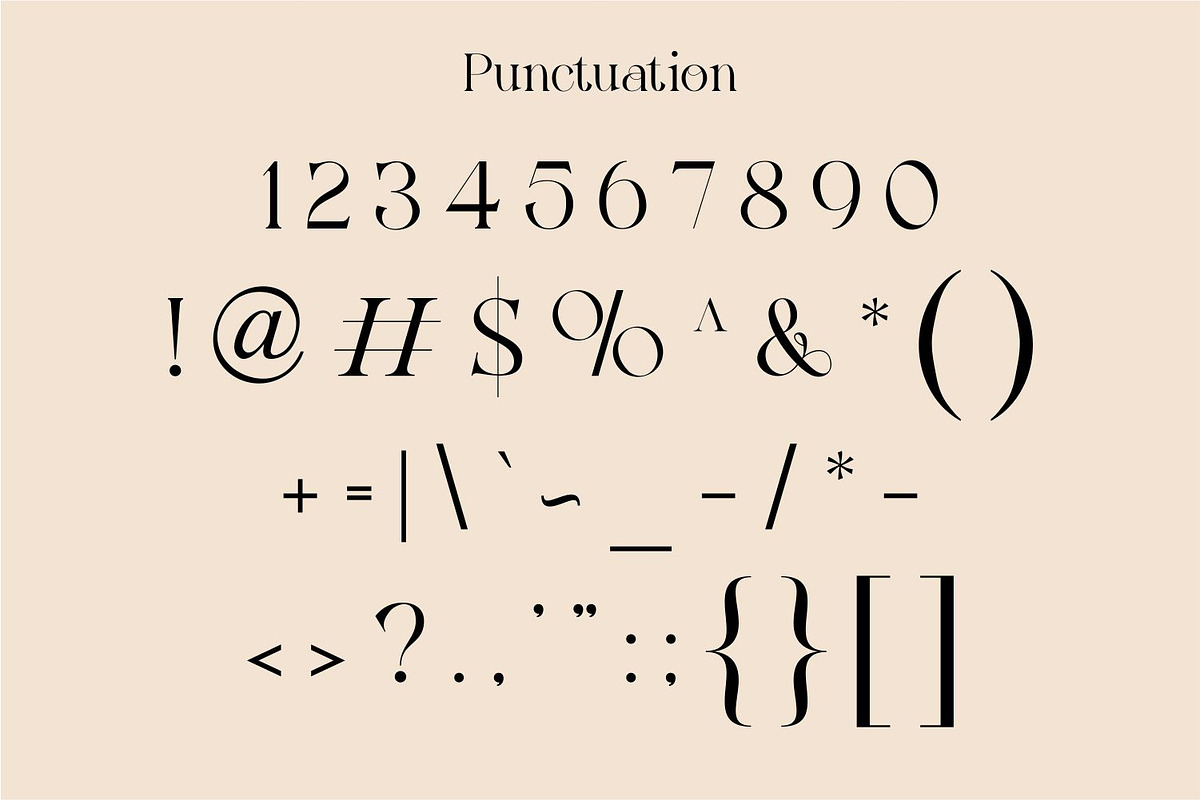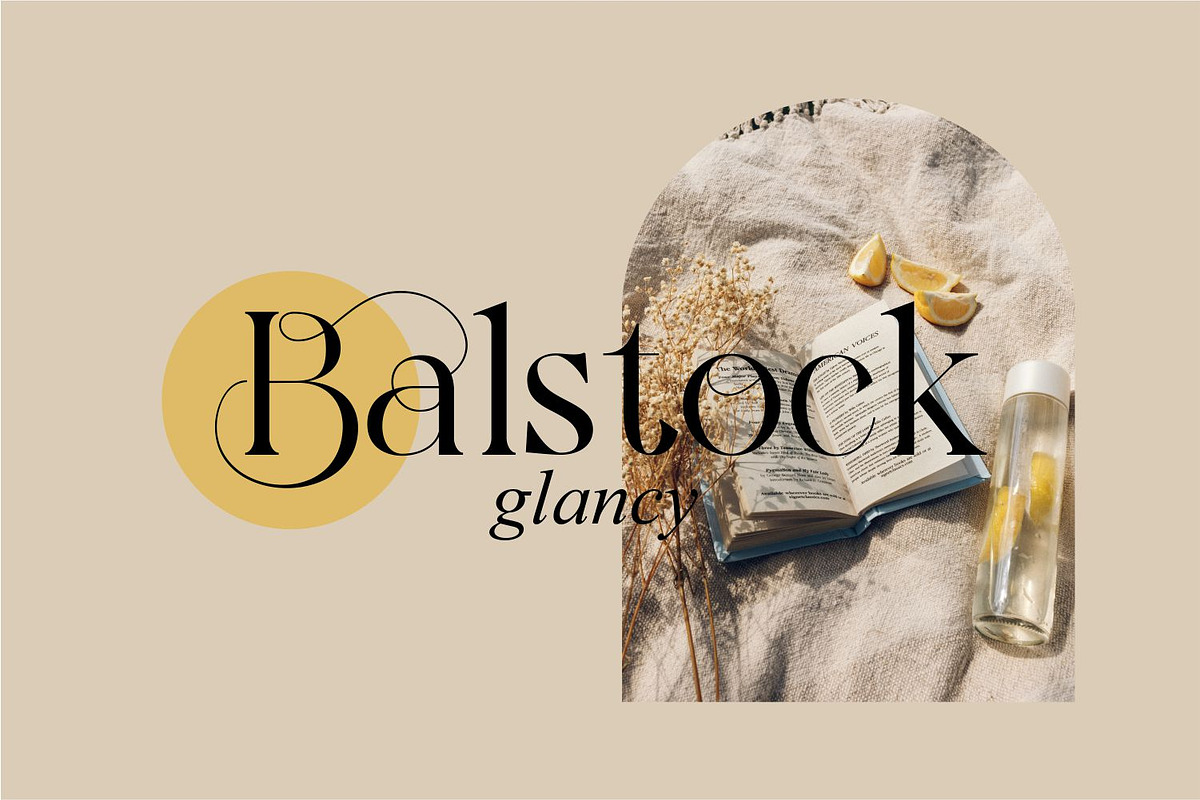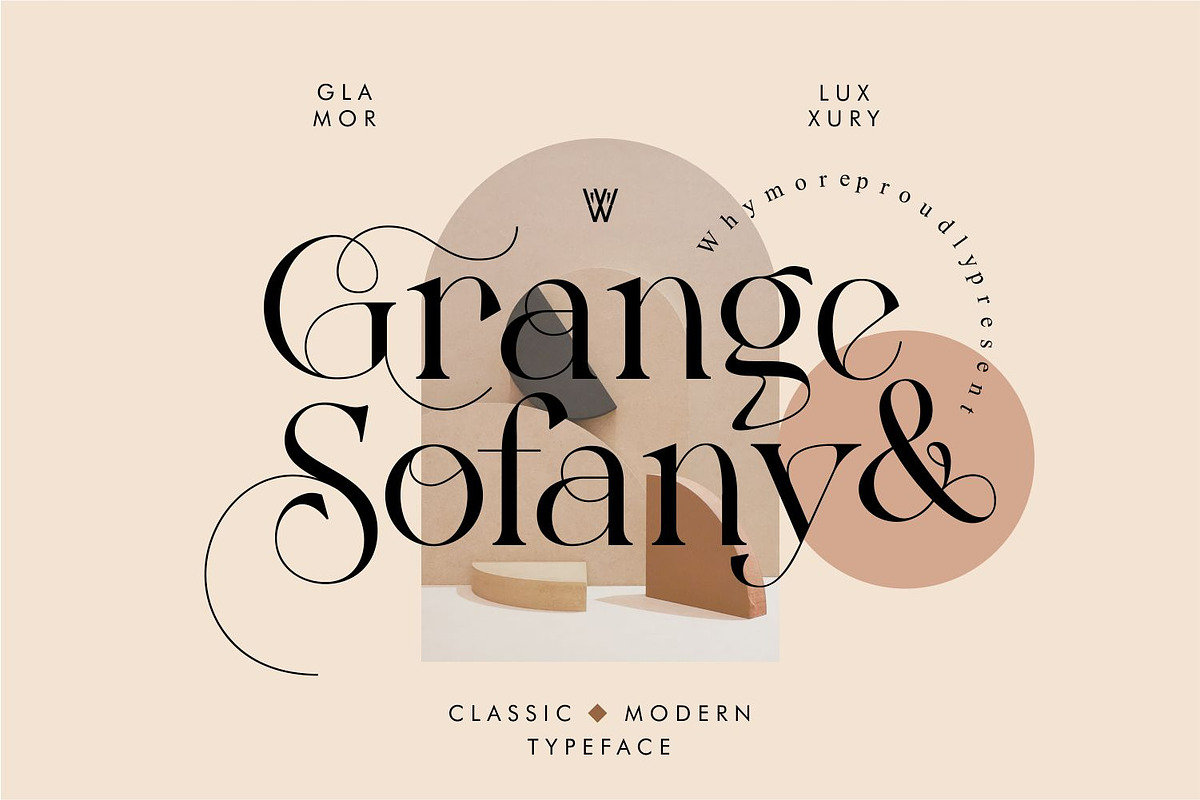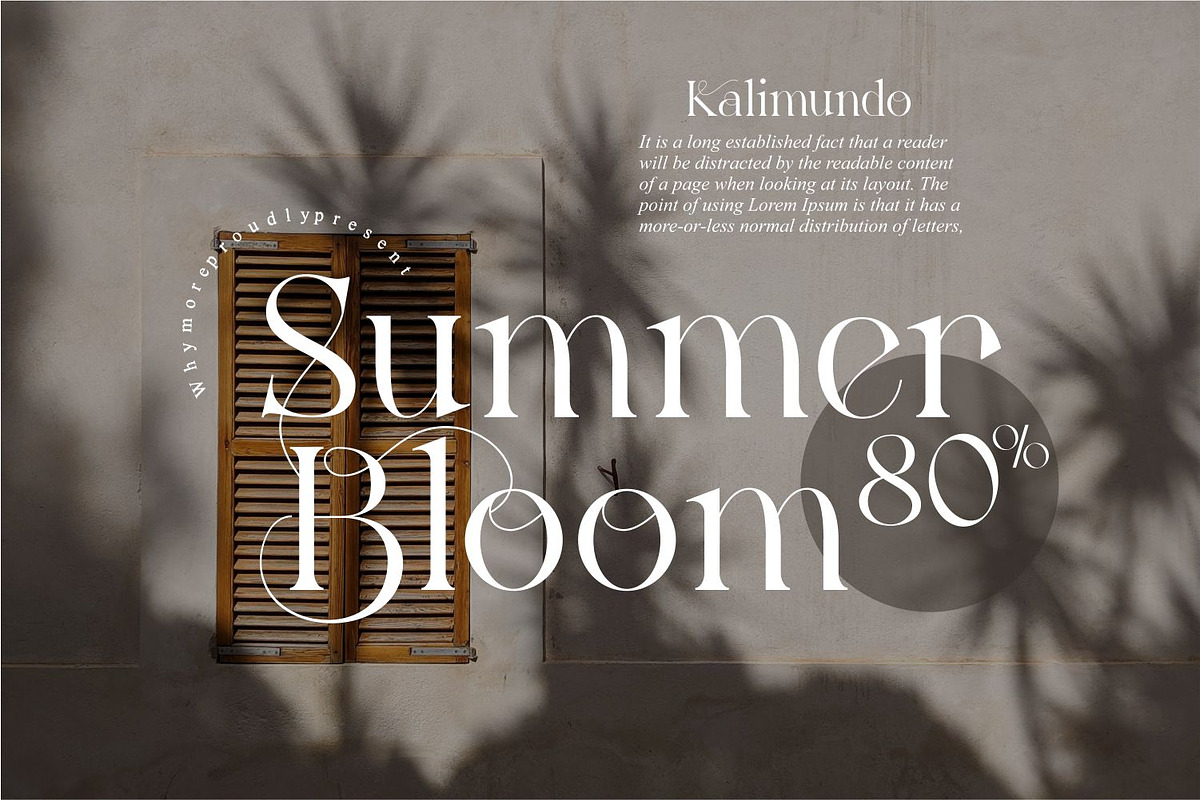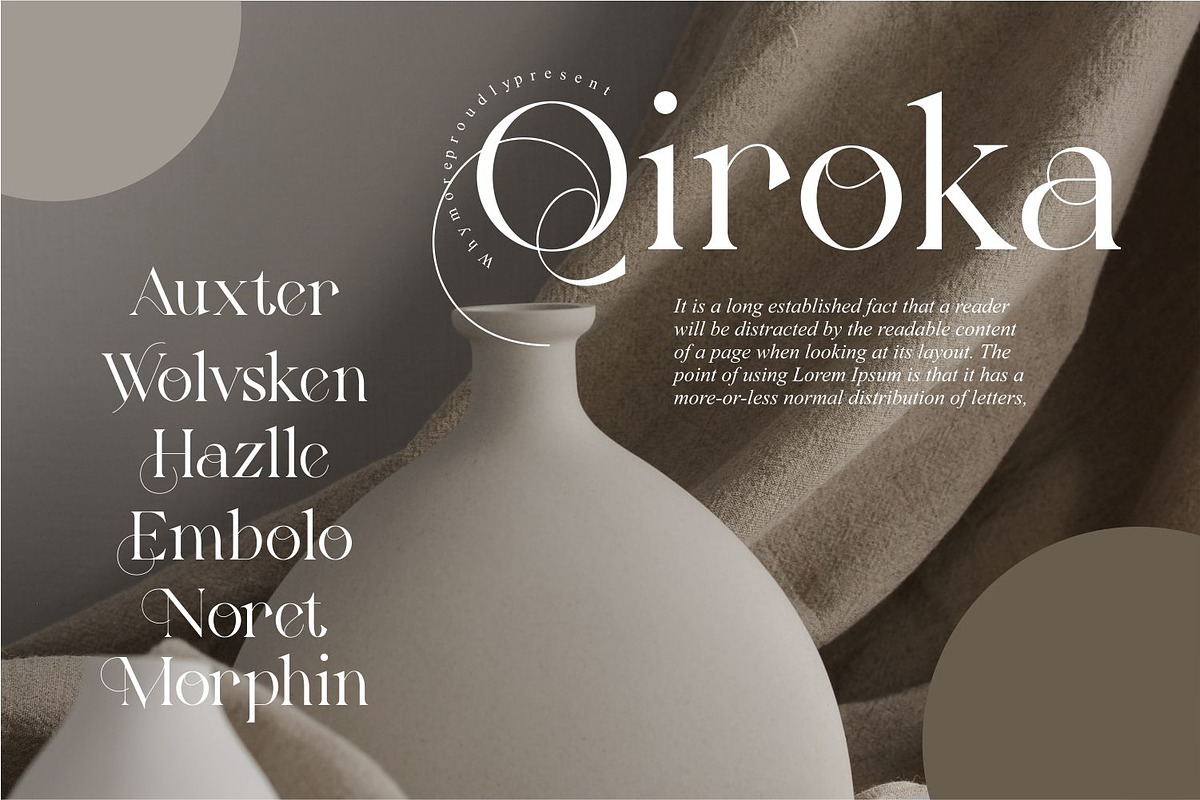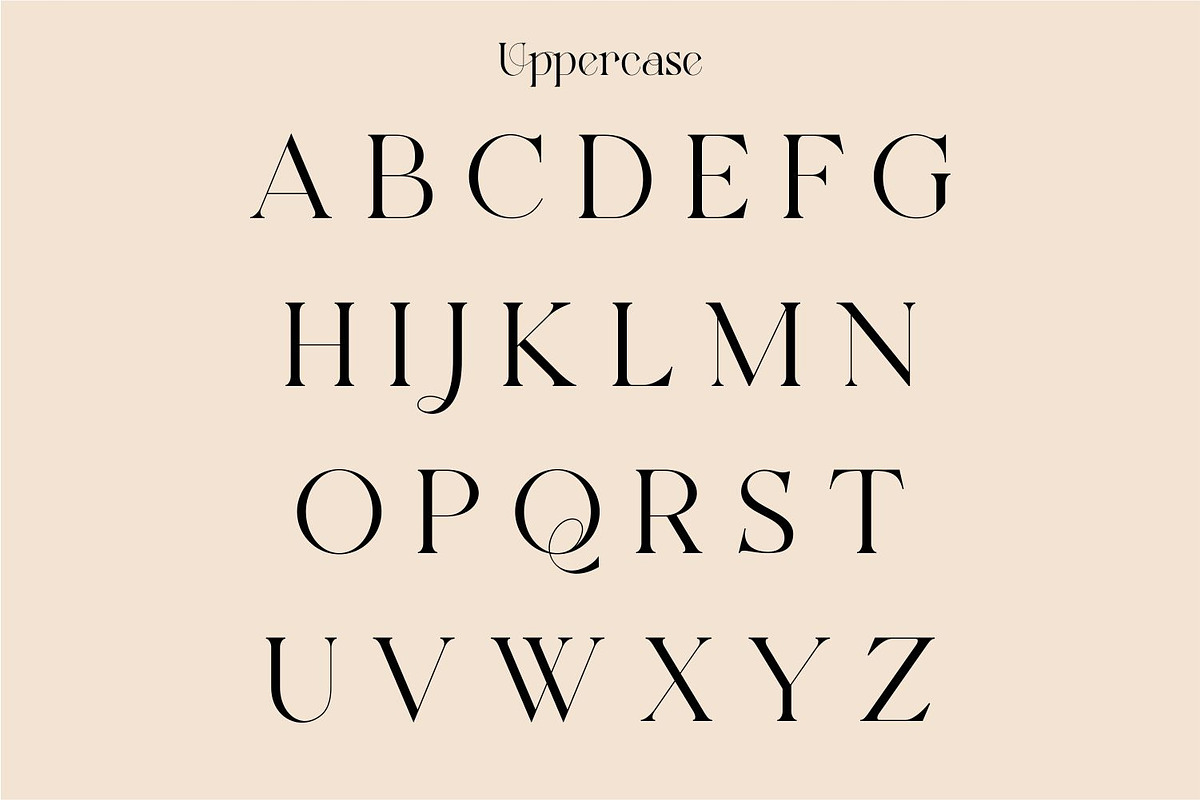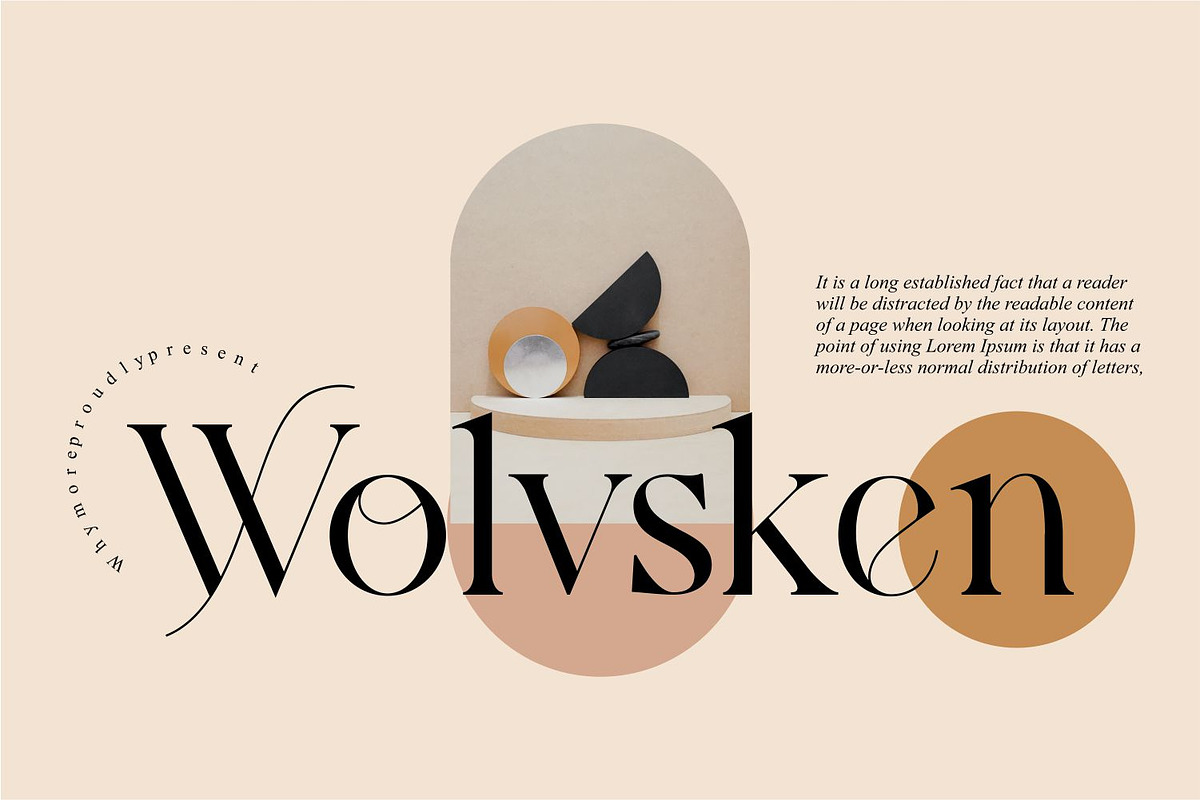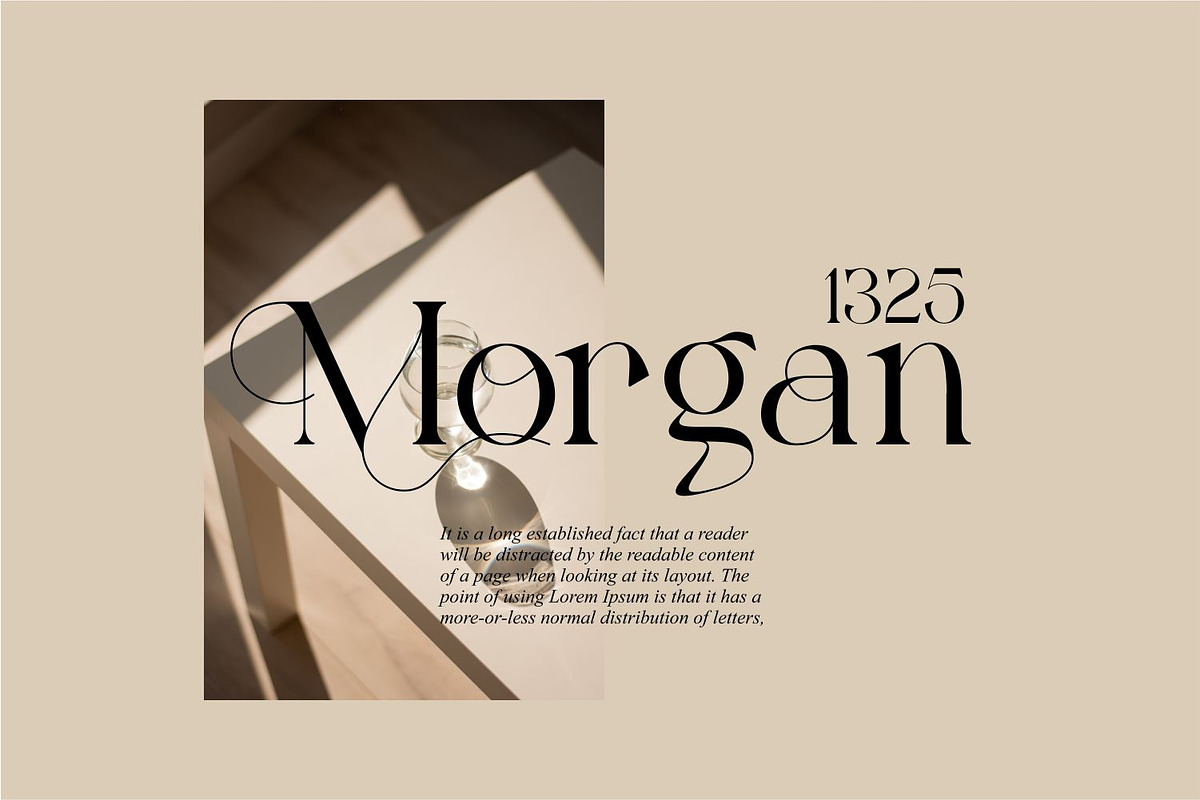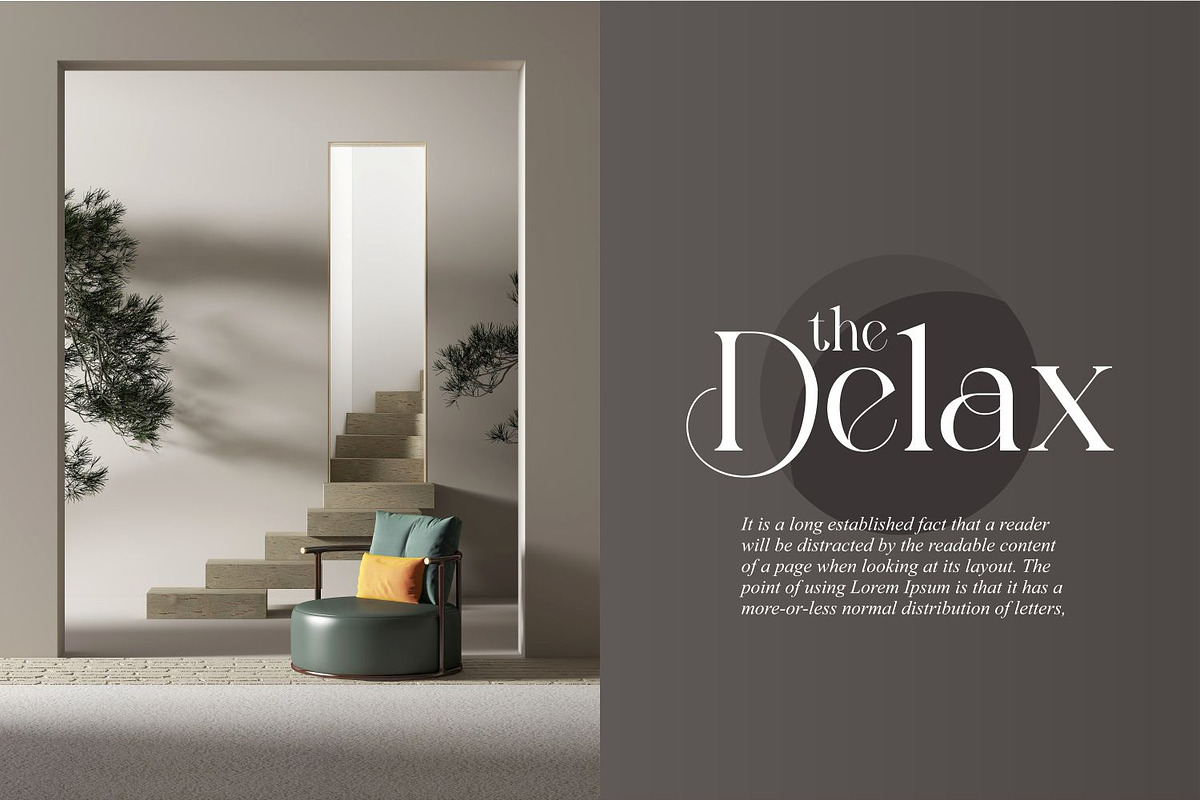
Grange Sofany Beautifull Serif Font
The Grange Sofany Font is a breathtaking serif typeface that exudes timeless beauty and sophistication. With its elegant curves and refined details, this font adds a touch of grace to any design project. Whether you’re creating wedding invitations, branding materials, or editorial layouts, the Grange Sofany Font brings a sense of refined charm that captivates the viewer. Its versatile nature makes it suitable for both digital and print applications, ensuring your designs stand out with a touch of classical beauty.